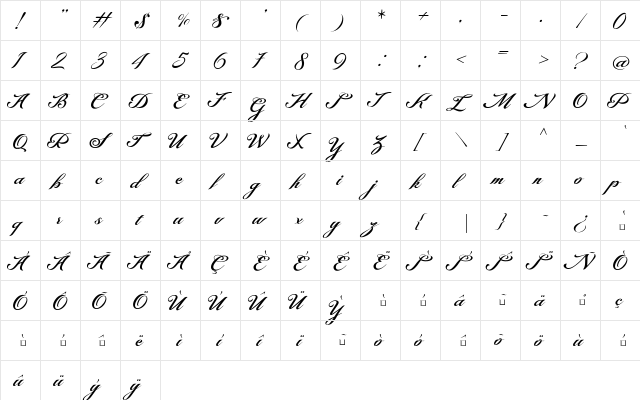
Montante Demo Regular
Design Context for Montante Demo Typeface
Montante Demo is a composed and adaptable typeface that performs quietly and consistently across a wide range of design contexts.